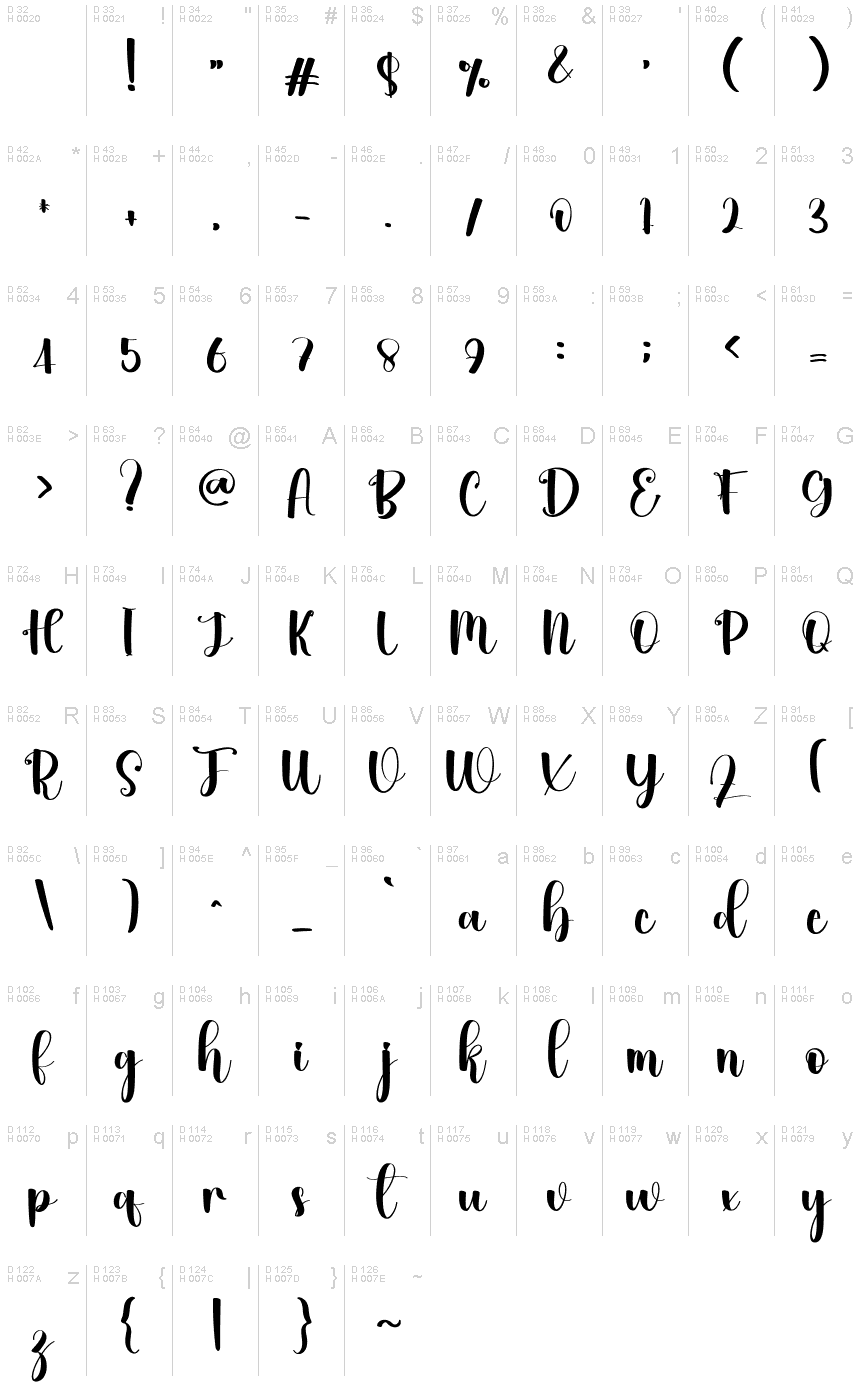
Child
Child, a semi-bold handwritten font crafted by Inermedia Studio, embodies the charm of fluid penmanship with its own unique twist. Its flowing curves and slight irregularities give it a bespoke feel reminiscent of personalized notes and heartfelt messages. The semi-bold weight of Child ensures that while it maintains the delicate qualities of handwriting, it stands out with confidence on both digital screens and printed media.
The aesthetic appeal of Child lies in its balance between readability and character; each letterform is designed to capture the spontaneity of hand-drawn strokes while remaining clear and legible. This makes the font an excellent choice for designers looking to add a touch of warmth and authenticity to their projects without sacrificing professionalism.
Whether gracing the pages of a children's book, adding personality to branding materials, or serving as an engaging script for invitations, Child offers versatility across various creative endeavors. Its style suits occasions calling for intimacy and individuality, making it an invaluable addition to any designer's toolkit seeking to evoke emotion through typography.